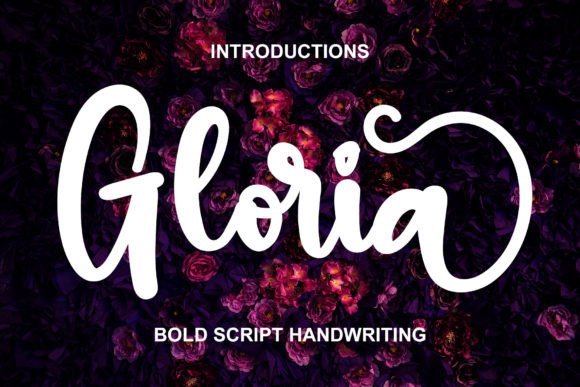
Discover the Joy of Handwritten Charm: Gloria Font
Have you ever found yourself scribbling down ideas in a notebook, the pen gliding effortlessly across the page as your imagination runs wild? That’s the magic of handwritten moments – a world where creativity knows no bounds. And now, that same magic can be captured in your designs with the introduction of Gloria Font, a sweet and cursive handwritten font that will transport your projects to a world of joy and romance.
Gloria Font is designed to add a touch of elegance and whimsy to any design, making it the perfect choice for branding, logo creation, wedding invitations, greeting cards, and so much more. As a designer, you know how valuable it is to have a versatile font that can adapt to any project, and Gloria Font delivers just that. With its gentle curves and playful charm, this font is sure to become a favorite among designers looking to add a personal touch to their work.
Gloria Font Key Features
- Unique Characteristics: Gloria Font features a unique, hand-drawn design with a mix of serif and sans-serif elements, giving it a distinctive and elegant appearance.
- Legibility: Gloria Font is designed to be highly legible, even at small font sizes, making it suitable for body text and long-form content.
- Language Support: Gloria Font supports a wide range of languages, including Latin, Cyrillic, and Greek scripts, making it a versatile choice for international publishing.
Gloria Font Review
Gloria Font is a beautiful, elegant script font that shines ✨ in various contexts, from wedding invitations to high-end branding. Its flowing connections and subtle flair make it perfect for creating a sense of sophistication and refinement. The font’s versatility allows it to work well in both digital and print formats, making it a valuable addition to any designer’s toolkit.
However, there are some limitations to consider ⚠️. The font’s complexity can make it challenging to use in small text sizes, and the connections between letters can sometimes be difficult to read. Additionally, the font’s beauty can be compromised if not paired with a suitable companion font, which can disrupt the overall balance of the design.
Here are some key features to keep in mind:
- Font Style: Script, elegant, sophisticated
- Font Size: Best used in medium to large sizes
- Pairing: Suitable for pairing with sans-serif fonts
- Use Cases: Wedding invitations, high-end branding, luxury packaging
Overall, Gloria Font is a stunning addition to any designer’s collection, but it requires careful consideration and pairing to achieve the best results. With the right use and combination, it can elevate any design to new heights.
Tips for Getting the Most Out of Gloria Font
To get the most out of Gloria Font, consider the following tips:
- Use Gloria Font consistently throughout your design to create a cohesive look.
- Pair Gloria Font with other fonts to create a unique and eye-catching design.
Gloria Font is commonly used for:
- Headings and titles.
- Body text in marketing materials.
- Logos and branding materials.